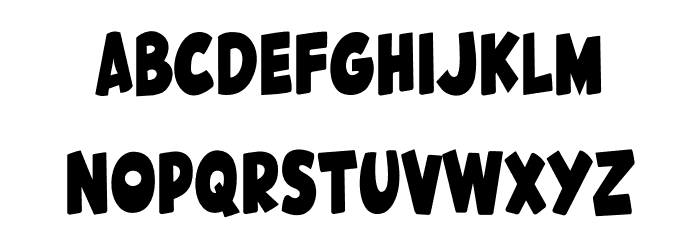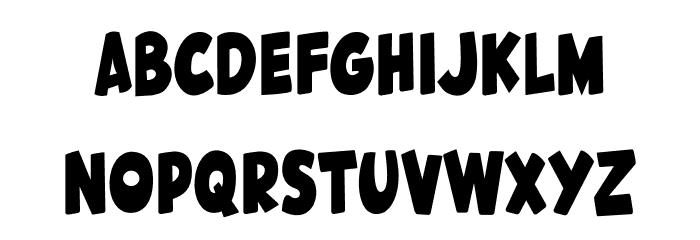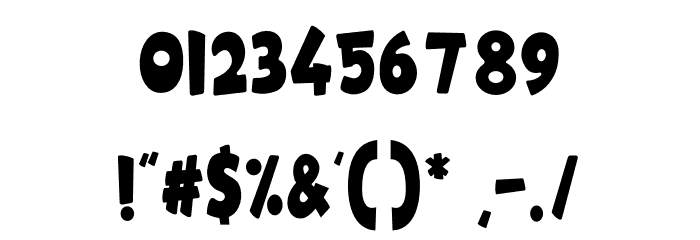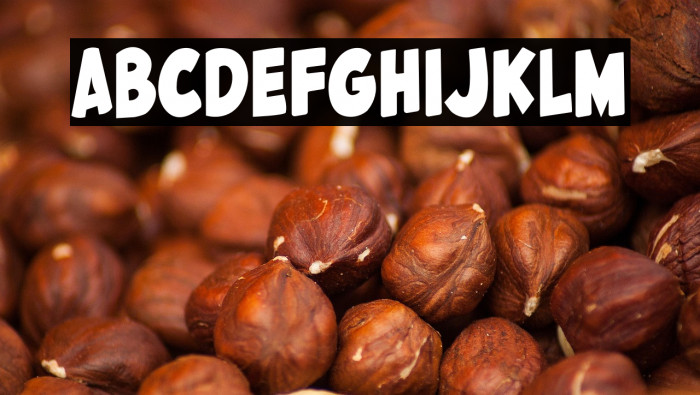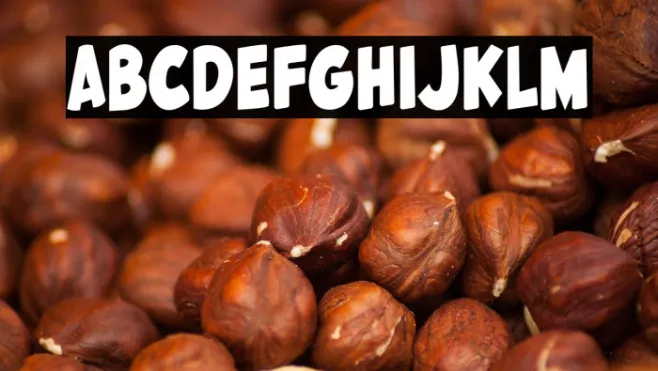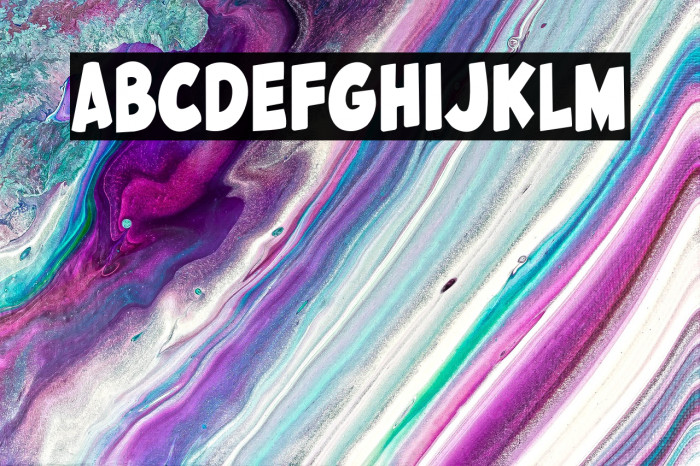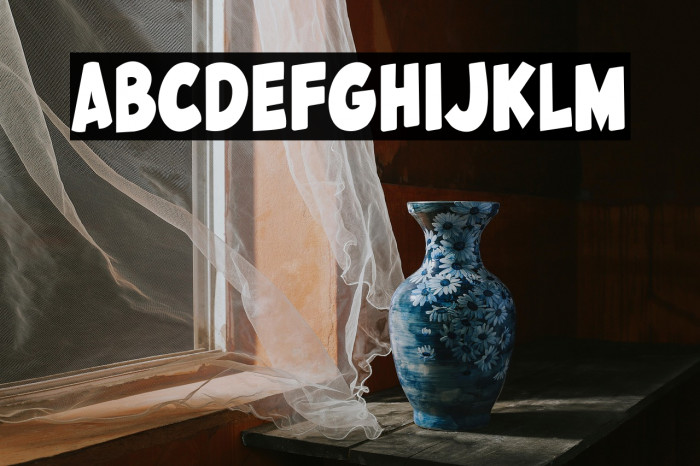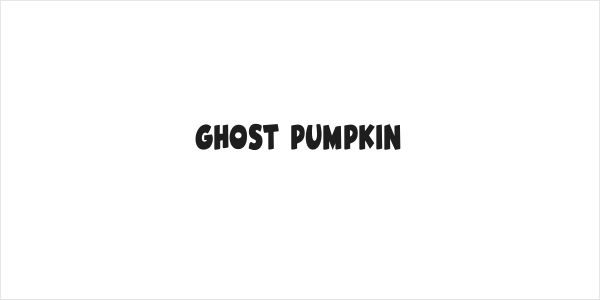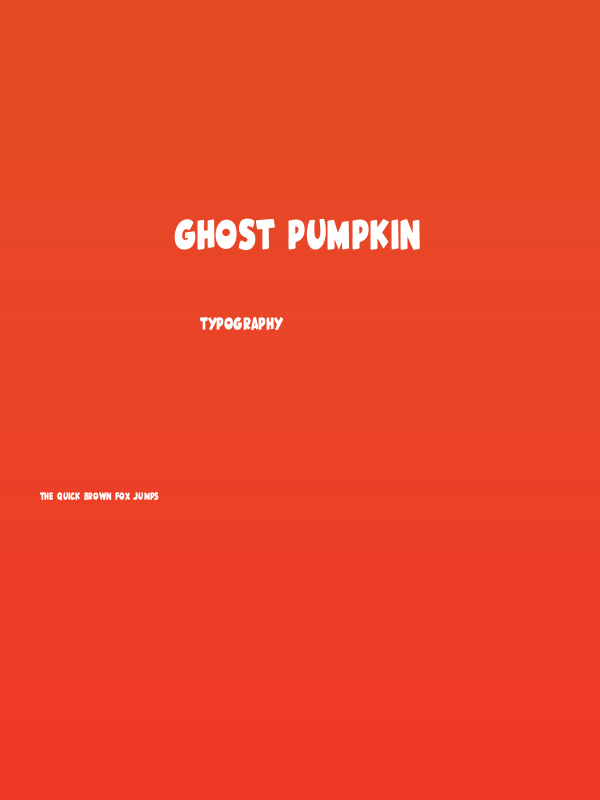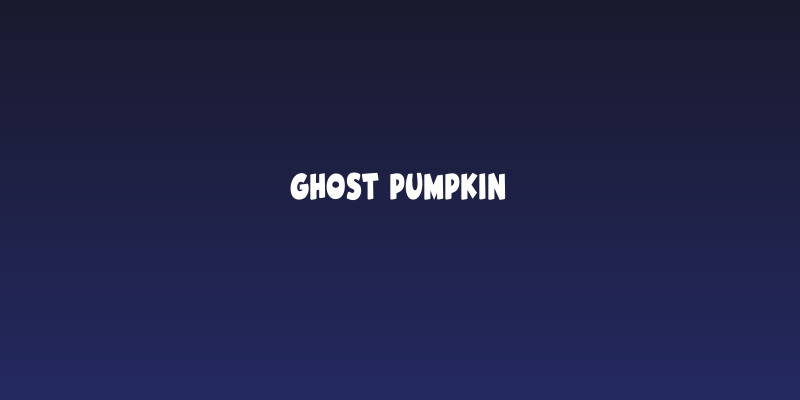
Ghost Pumpkin Font
A bold, playful font with irregular, chunky letterforms, giving it a whimsical and fun appearance.
Bold and playful font with chunky, irregular shapes.
- Font: Ghost Pumpkin
- Proposed Projects: Halloween-themed designs, children's books, playful posters.
- Overall Style: Playful, Whimsical
- Use Case: Headlines, Posters, Themed Events